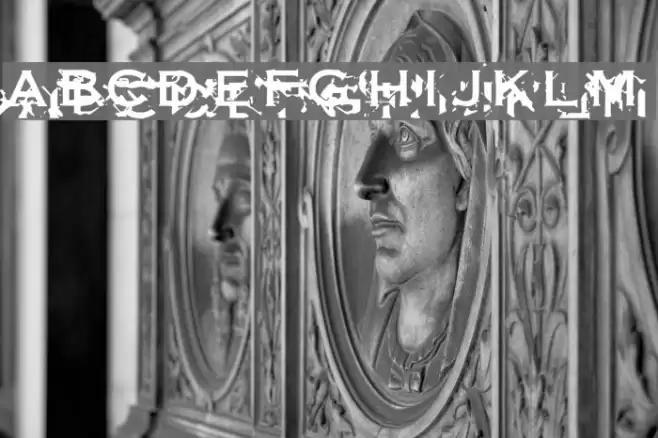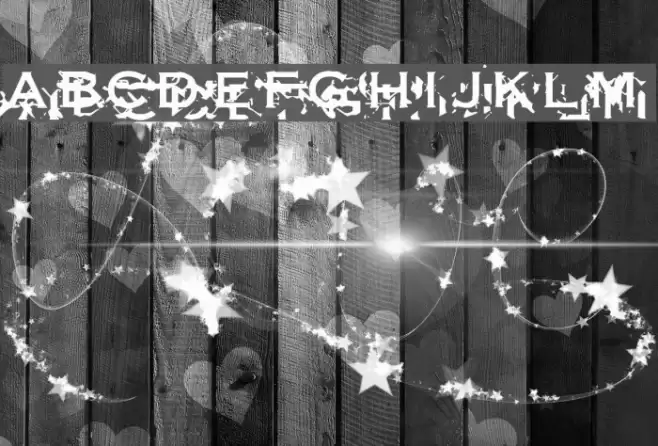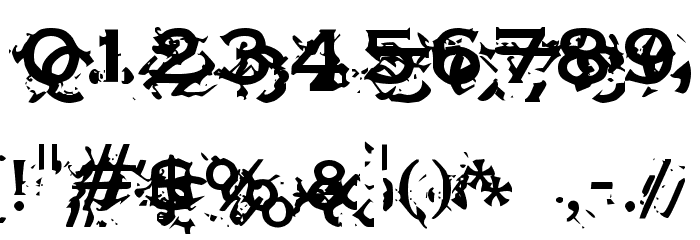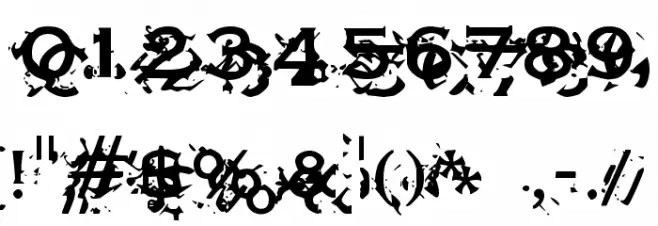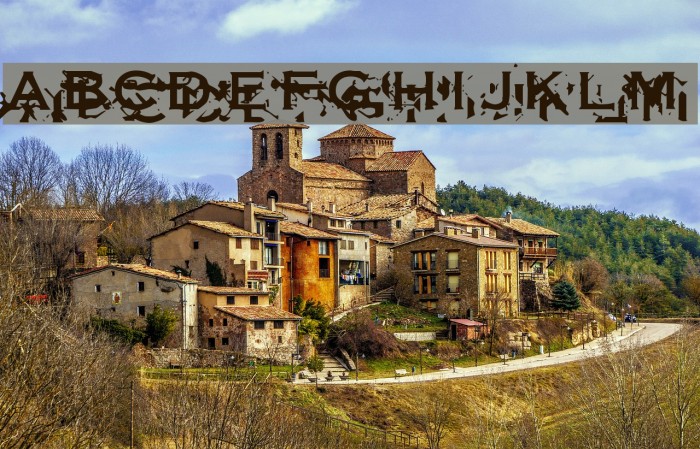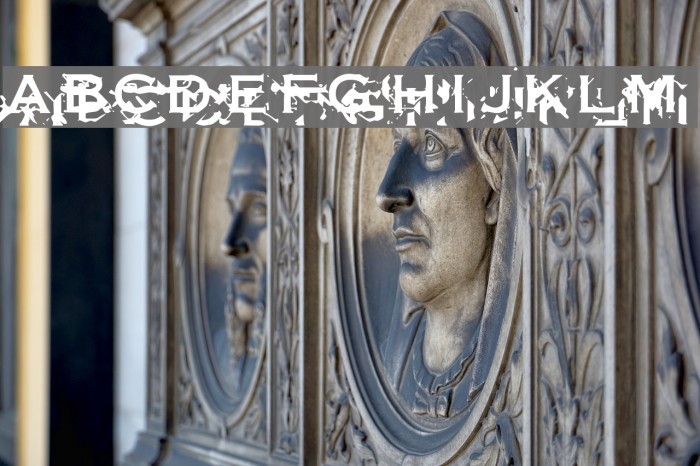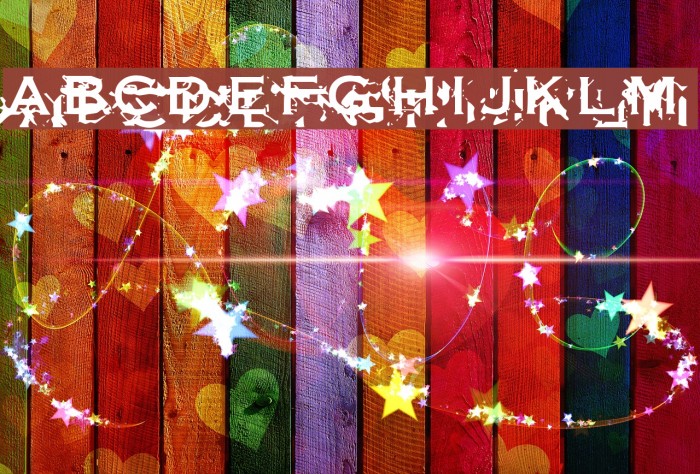
XXon XXoff Font
XXon XXoff Description
This font features a highly distressed and grungy style, characterized by its fragmented and chaotic appearance. The letters are bold and heavily textured, giving an impression of decay or destruction. The irregular edges and scattered ink splatters create a sense of movement and energy, making it stand out as a unique and eye-catching design. The uppercase and lowercase letters, as well as numbers and special characters, all maintain this distressed aesthetic, ensuring consistency across all elements. This font is ideal for projects that require a bold statement or an edgy, urban feel.
A bold, distressed font with a grungy, chaotic style from Gothic fonts.
- Proposed Projects: Album covers, streetwear branding, event posters, or any project needing a bold, edgy aesthetic.
- Overall Style: Grunge, Urban, Edgy